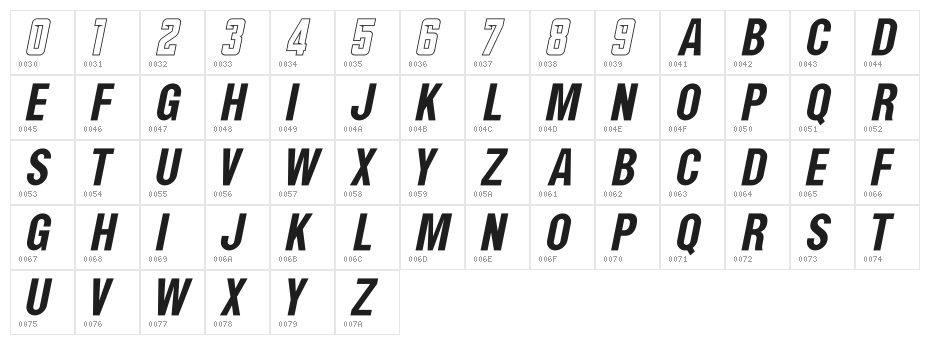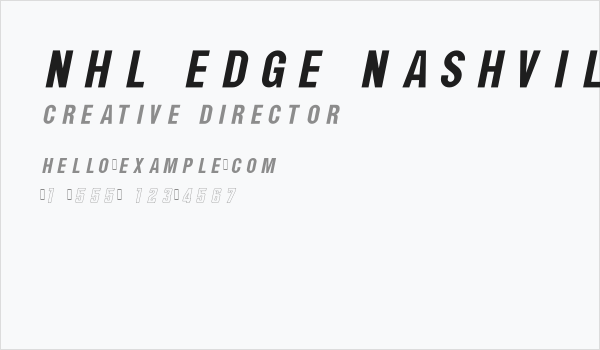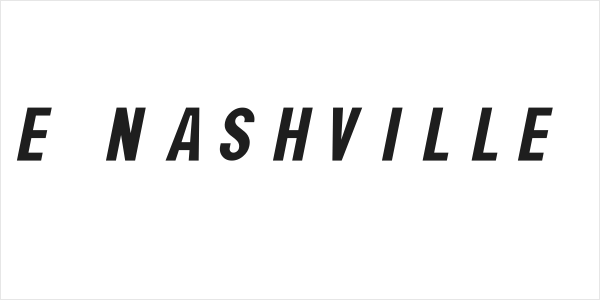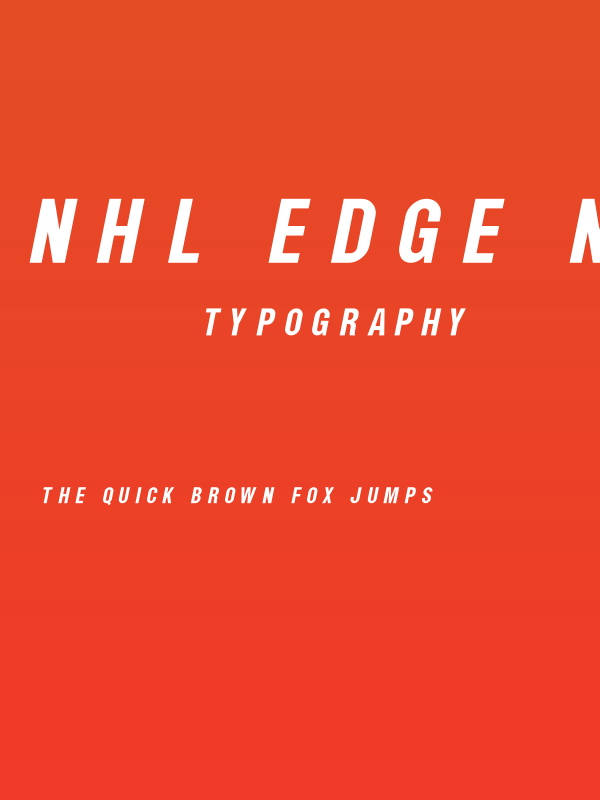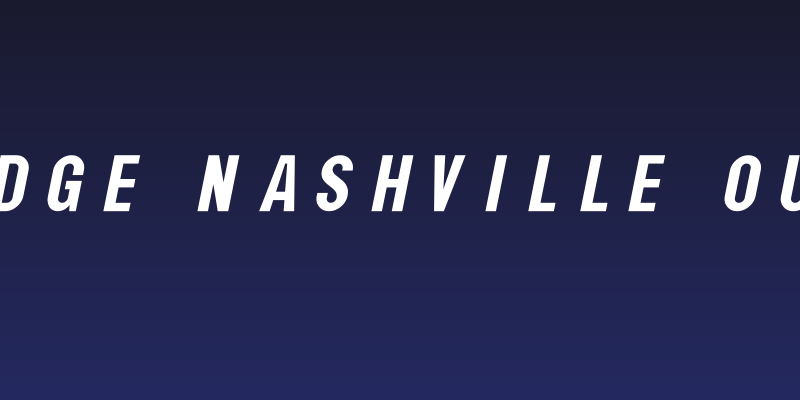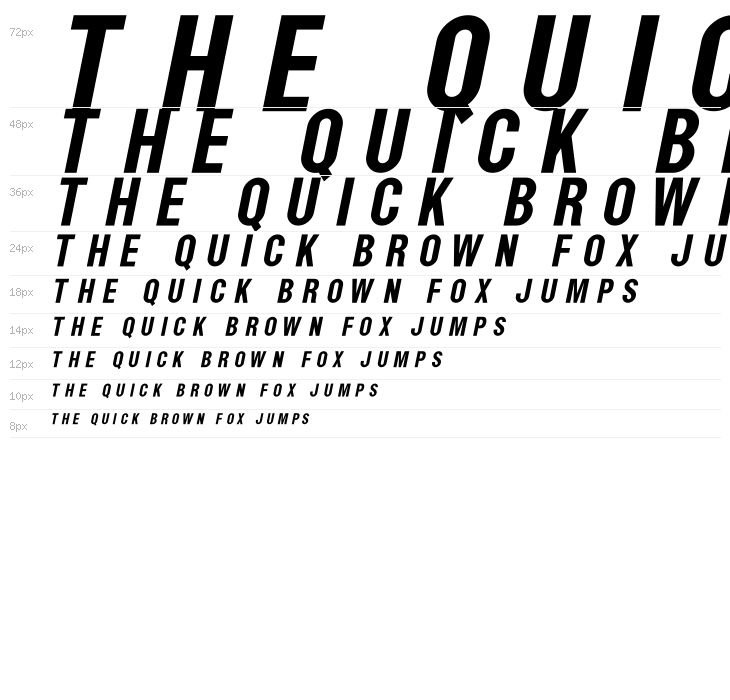
NHL Edge Nashville Outline Font
NHL Edge Nashville Outline Description
This font features a bold, italicized style with a strong, dynamic presence. The uppercase letters are prominent and slightly condensed, giving a sense of movement and energy. The numerals follow the same bold and italicized design, maintaining consistency throughout. The special characters are outlined, adding a unique touch to the overall design. This font is well-suited for projects that require a bold statement, such as sports branding or dynamic advertising. Its italicized nature adds a sense of speed and forward motion, making it ideal for conveying action and excitement.